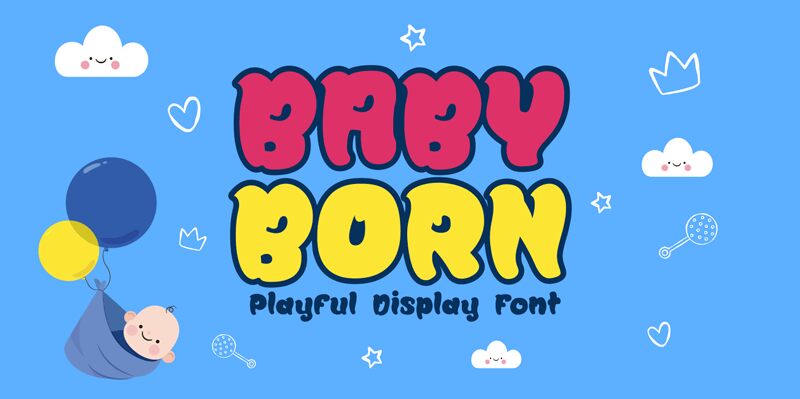
Baby Born by Nurf Designs is a typographical delight that brings a touch of whimsy to any creative endeavor. This extra-bold, cartoon-style display font captures the essence of playful innocence with its chunky lettering and fun, child-like demeanor.
Perfect for injecting personality into greeting cards, birthday invitations, and packaging, Baby Born also adds a bubbly charm to labels and t-shirt designs. Its versatility extends to logotypes where it can breathe life into brands aiming for a friendly and approachable identity.
Watch your designs spring to life with the vibrant spirit of Baby Born – the font that turns the ordinary into the extraordinary with its youthful exuberance and jolly aesthetic.